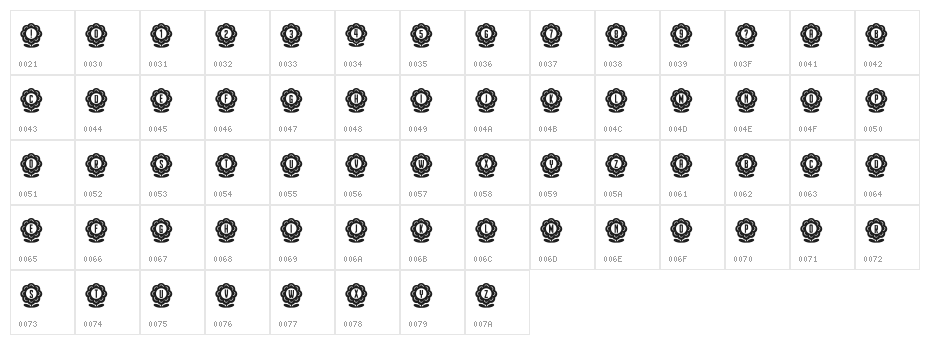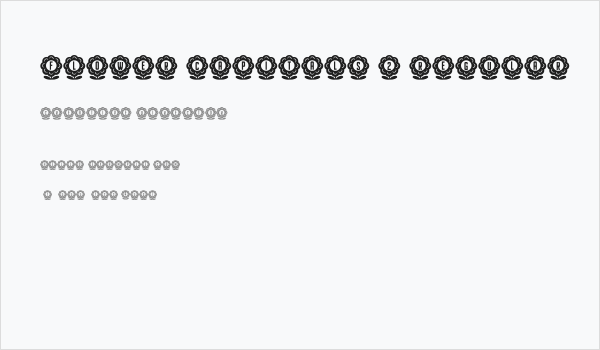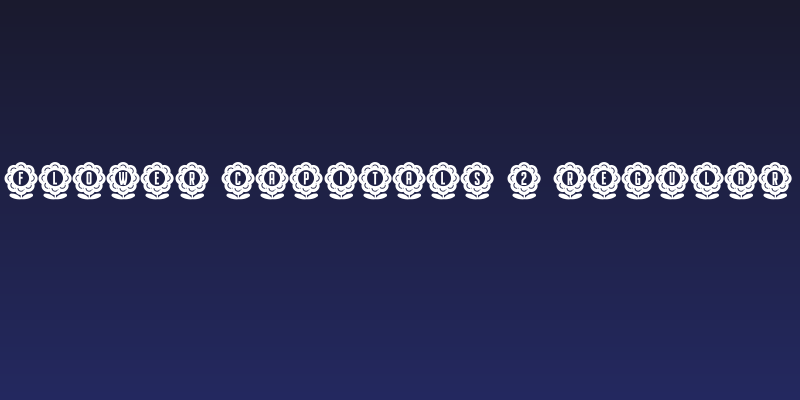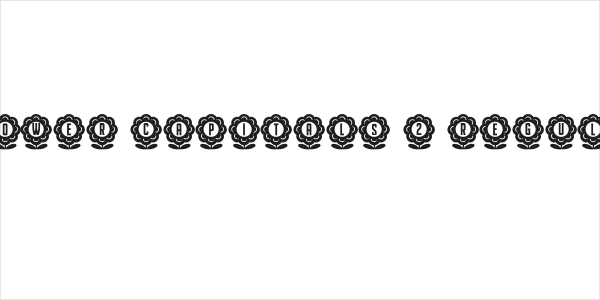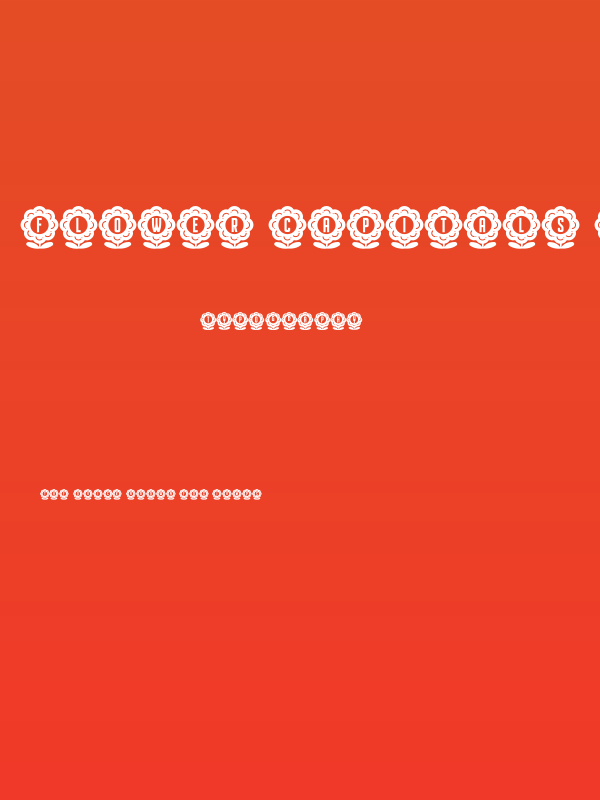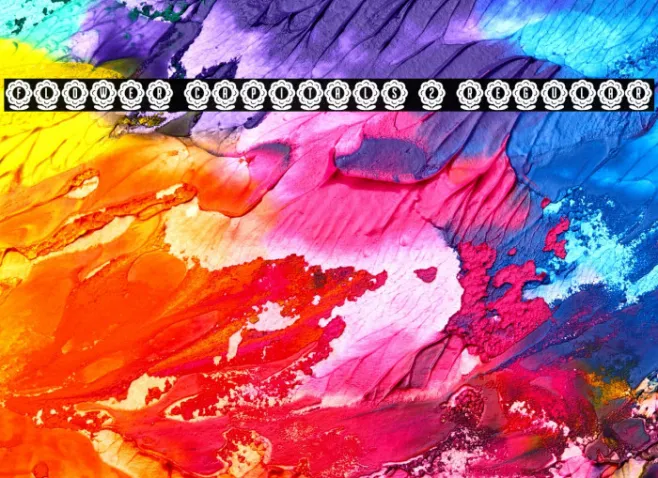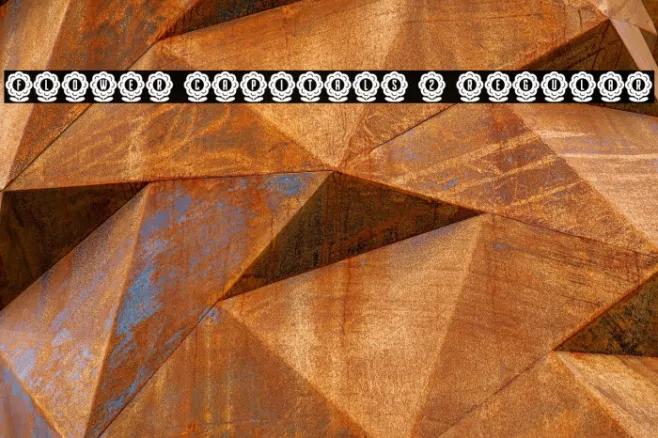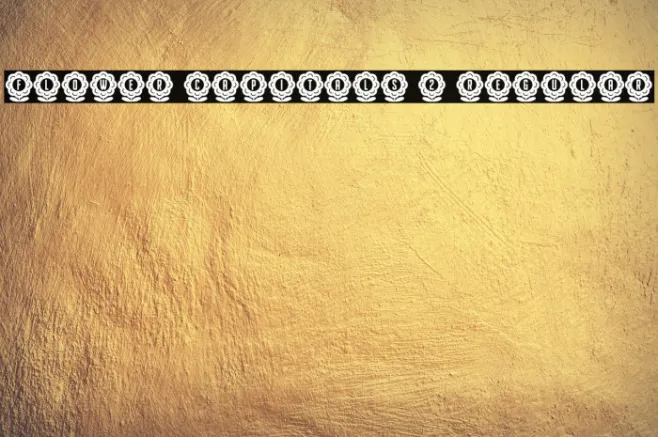
Flower Capitals 2 Regular Font
Flower Capitals 2 Regular Description
This decorative font features characters enclosed within flower-shaped outlines, creating a playful and whimsical appearance. Each letter and number is centered inside a stylized flower, with petals surrounding the character. The design is bold and eye-catching, making it suitable for creative and artistic projects. The font includes uppercase letters, lowercase letters, numbers, and a selection of special characters, all maintaining the floral theme. The consistent floral motif adds a unique charm, making it ideal for projects that require a touch of nature or a fun, decorative element.
| Proposed Projects | Ideal for greeting cards, children's books, event invitations, and decorative posters. |